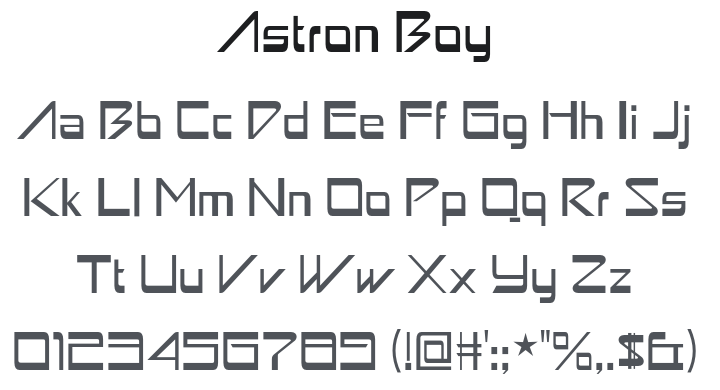
Astron Boy Font Family
About Astron Boy
Astron Boy is a rounded-square display typeface inspired by Astron Belt, a classic early-1980s laserdisc arcade game. Its clean geometric letterforms balance retro-futuristic charm with modern minimalism, available in standard, italic, shaded, and striped variants. Great for arcade game branding, sci-fi interfaces, retro-tech logos, and any design seeking that unmistakable early-videogame aesthetic.